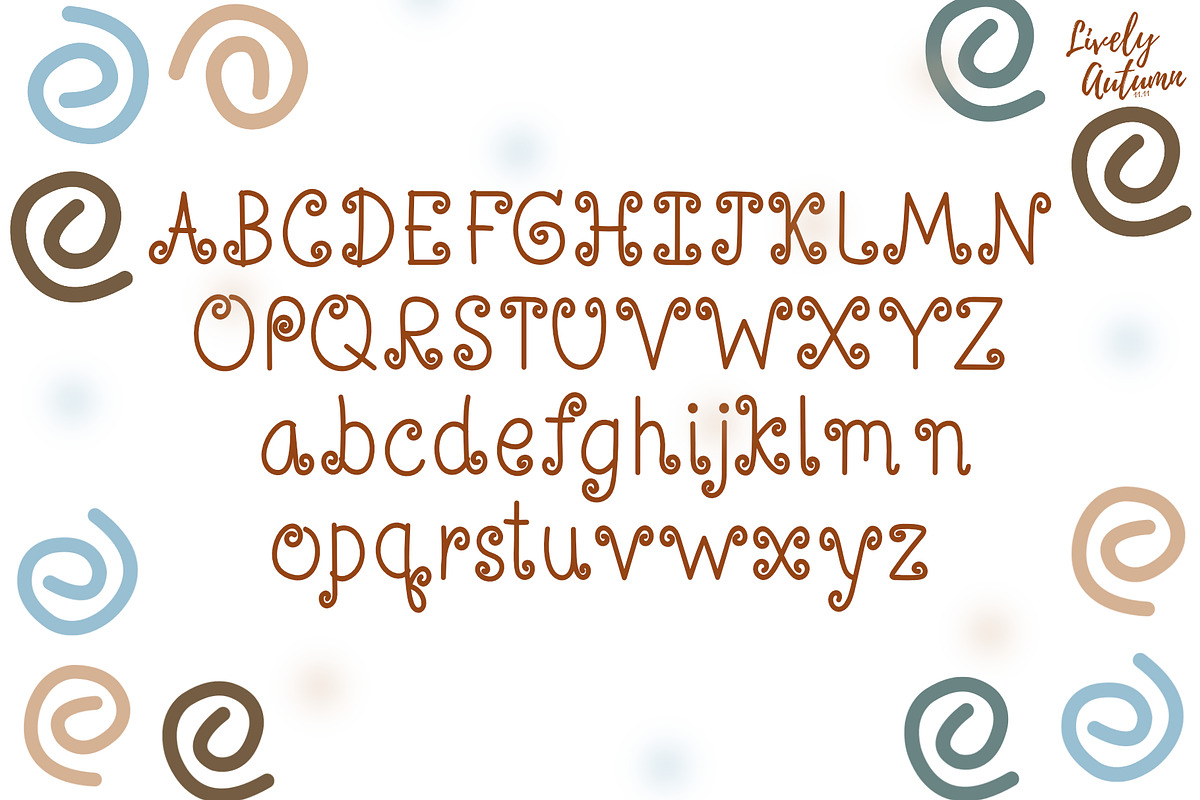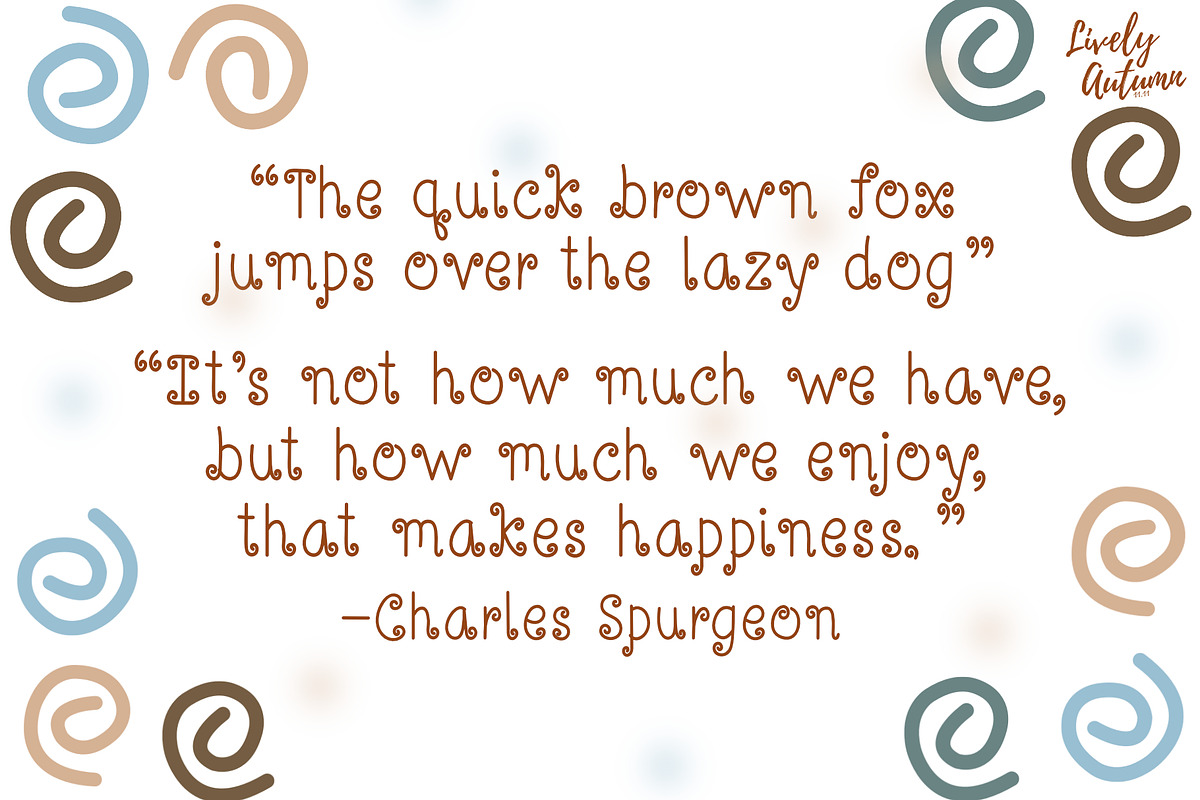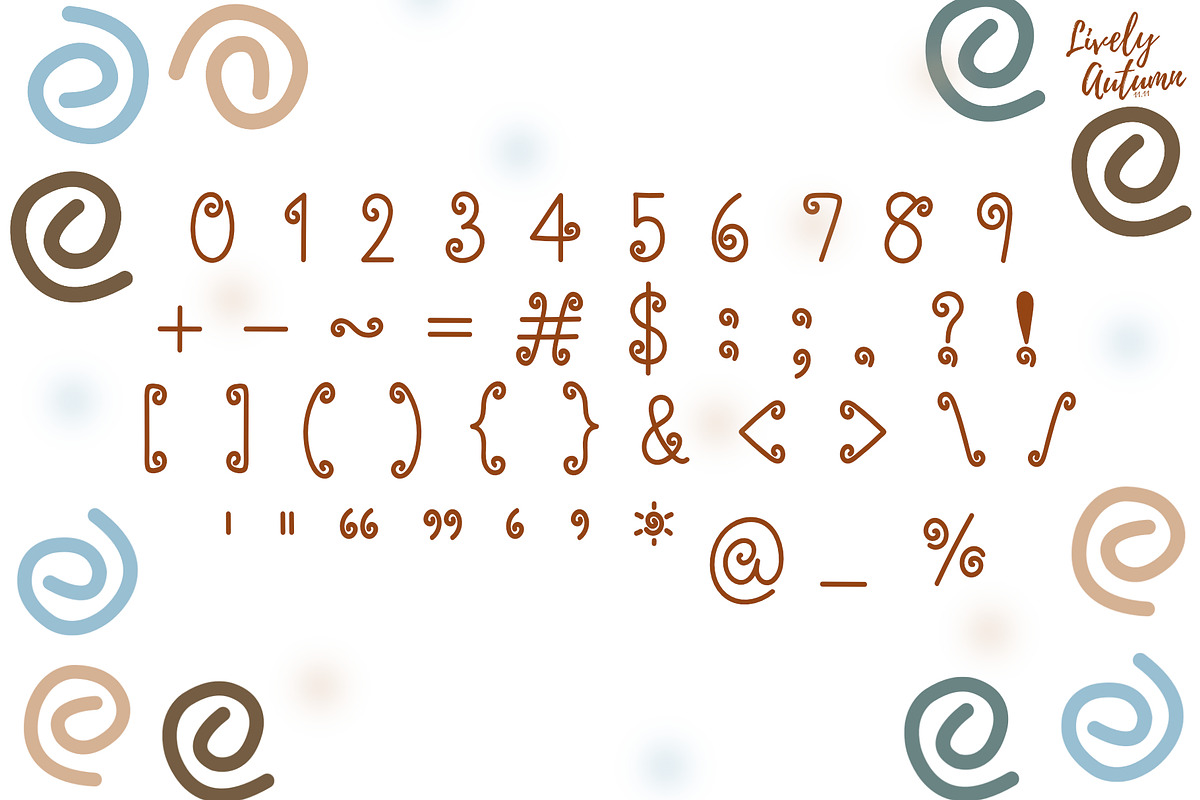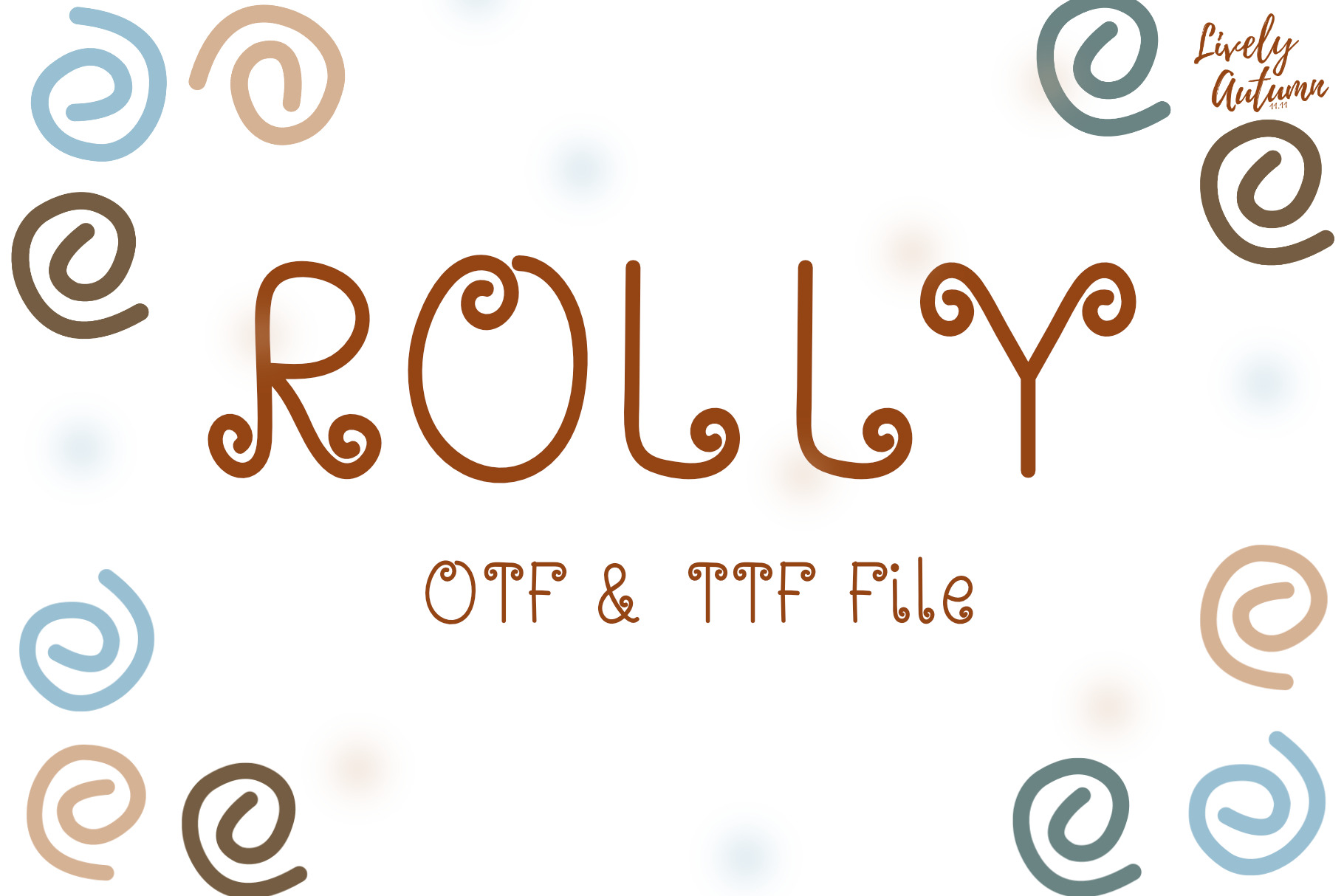
Rolly Font
Rolly Font is a decorative handwriting font that has a spiral roll decorated at the head or tail of the letters. Perfect for your personal projects and various projects. From invitations to posters, social media graphics, journals, and much more.